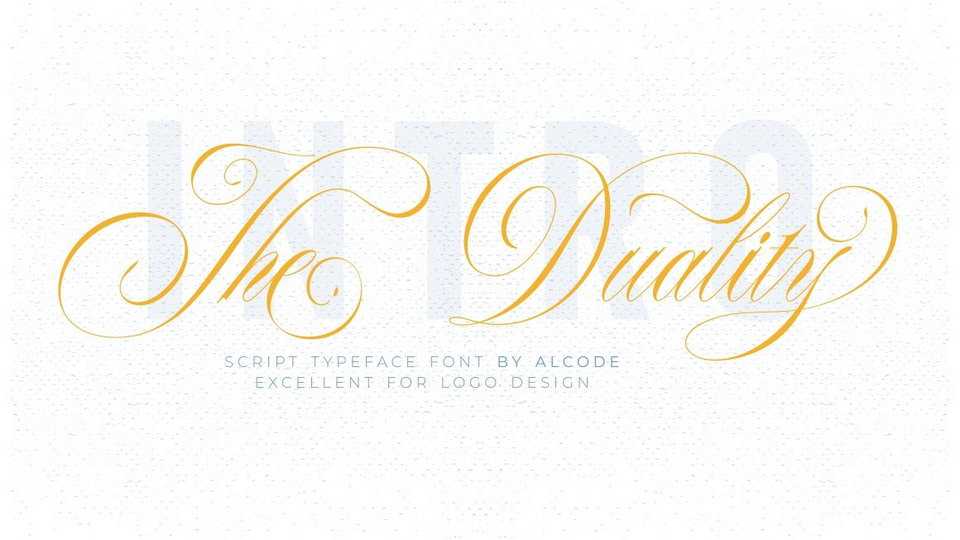
Download The Duality font, a gorgeous script typeface, every letter has been carefully crafted to make your text look beautiful. The Duality font is perfect for logos, badges, shirts, labels, clothing designs, etc.
Designer: Alcode